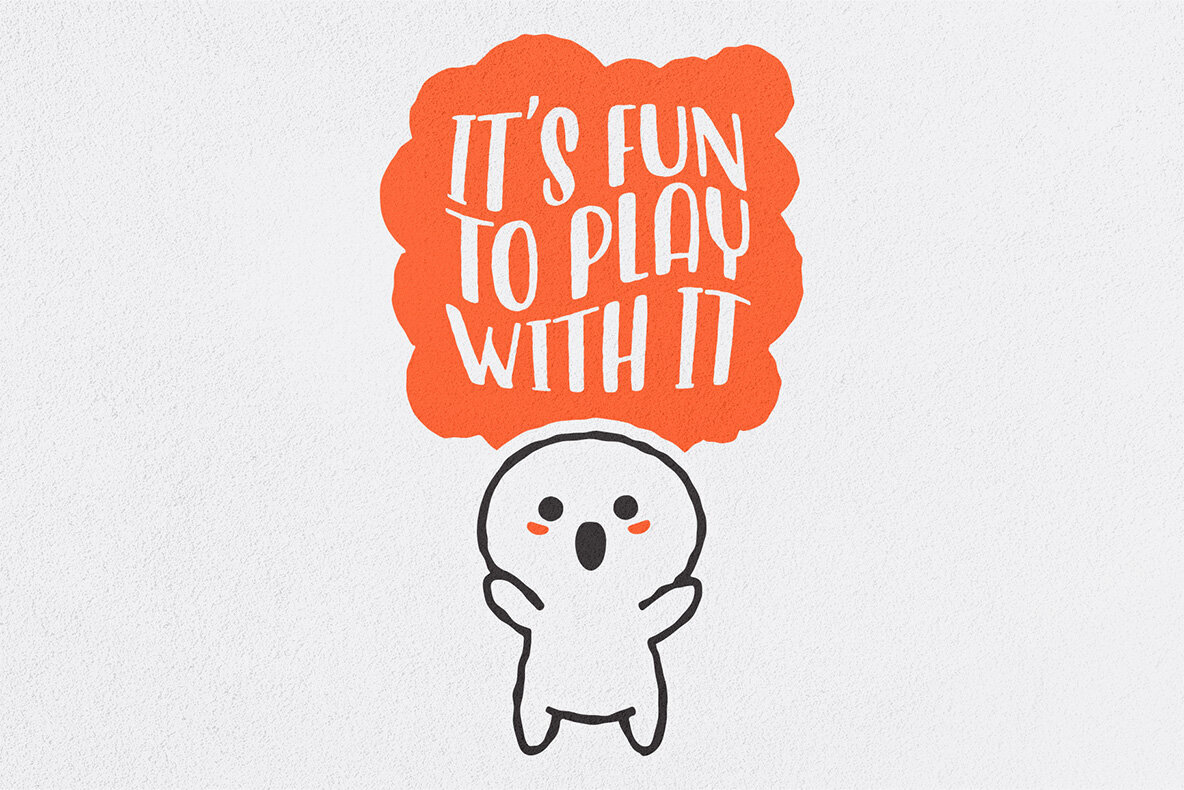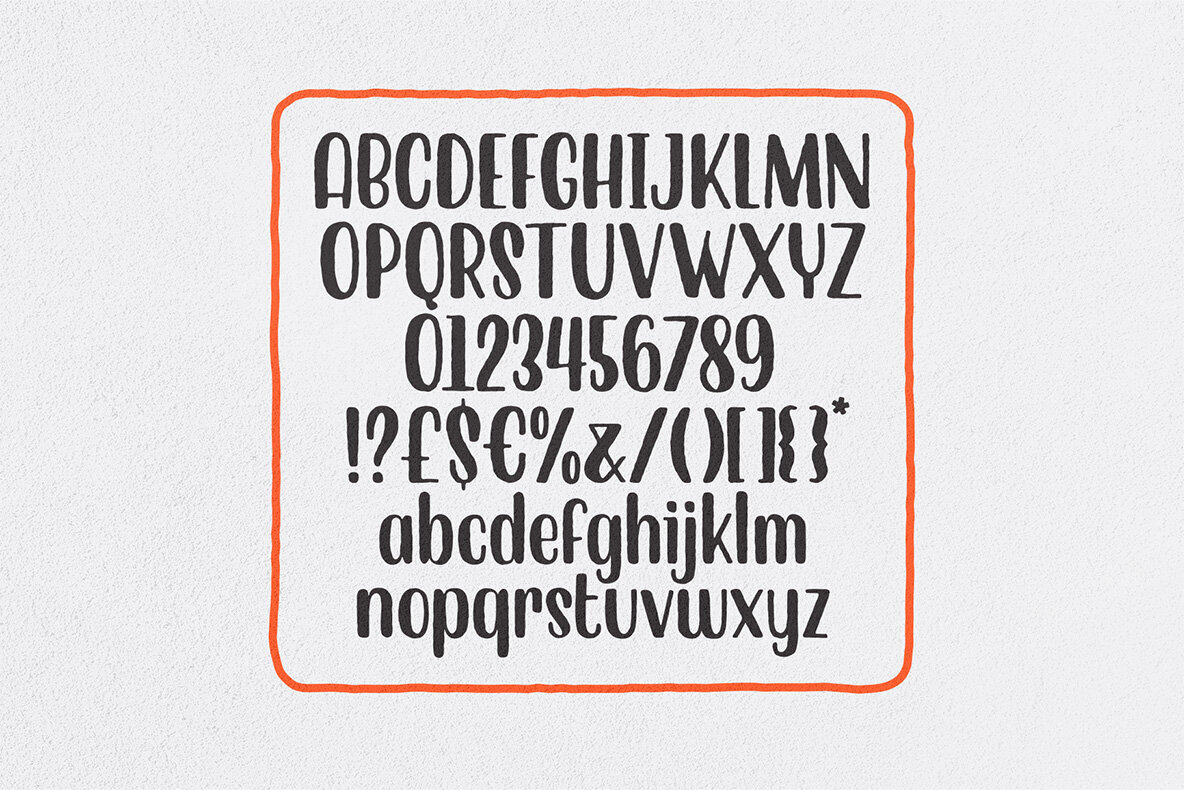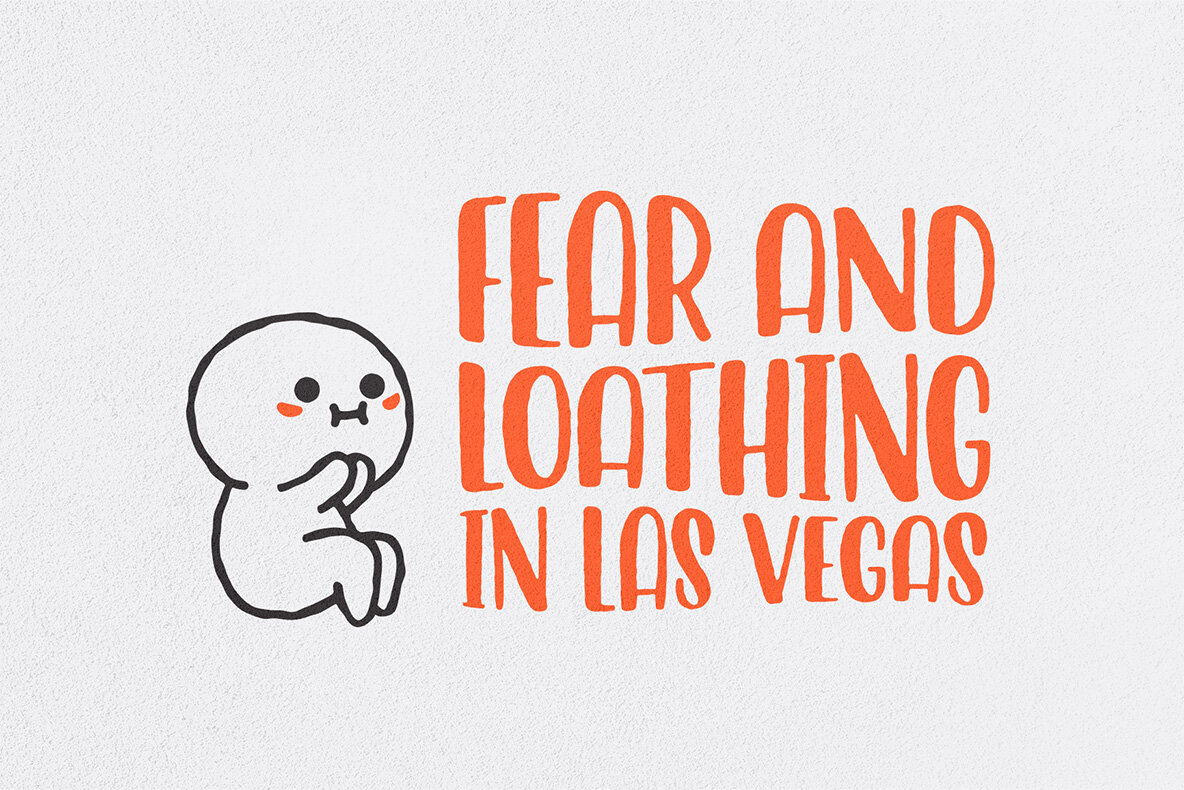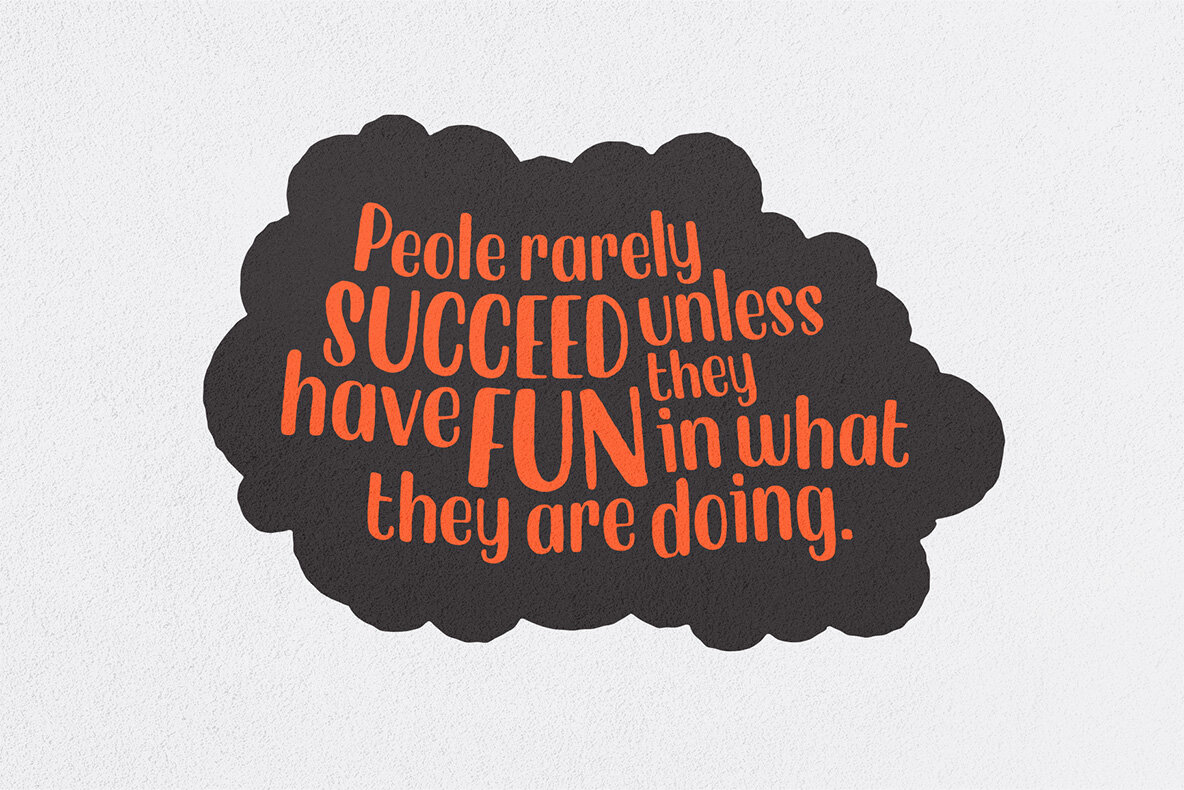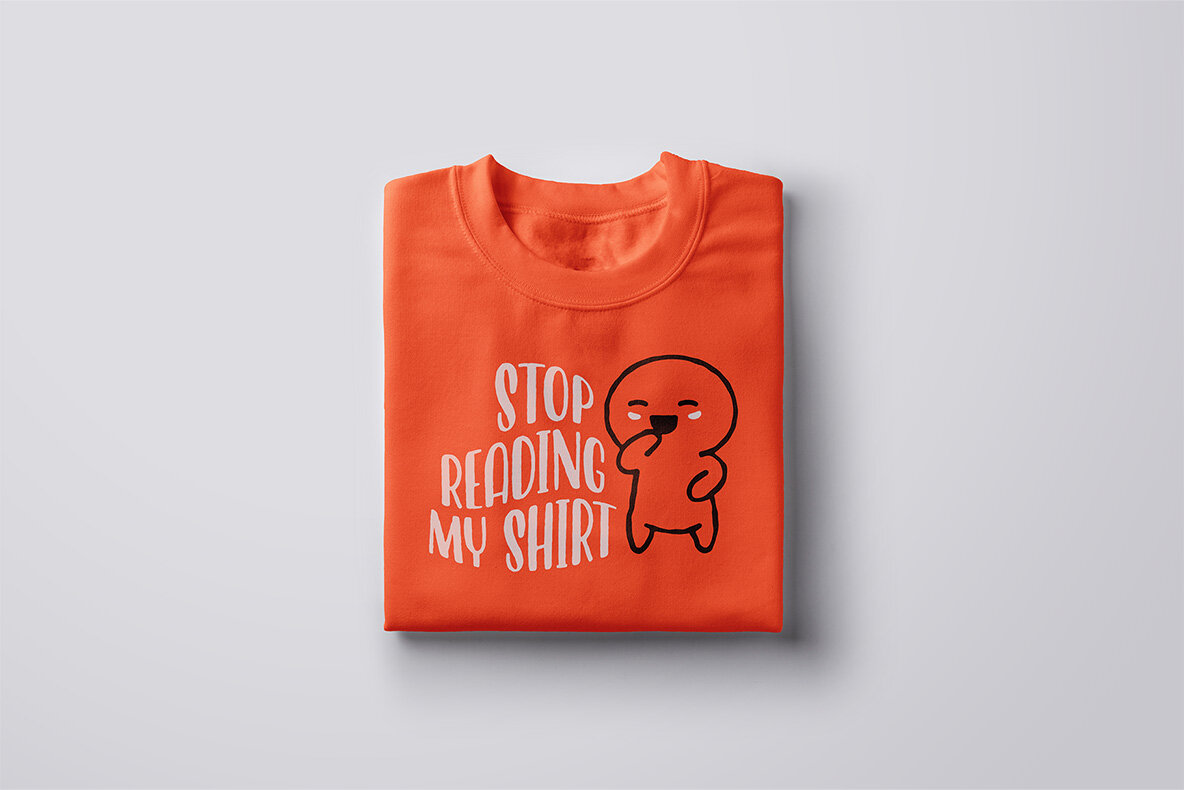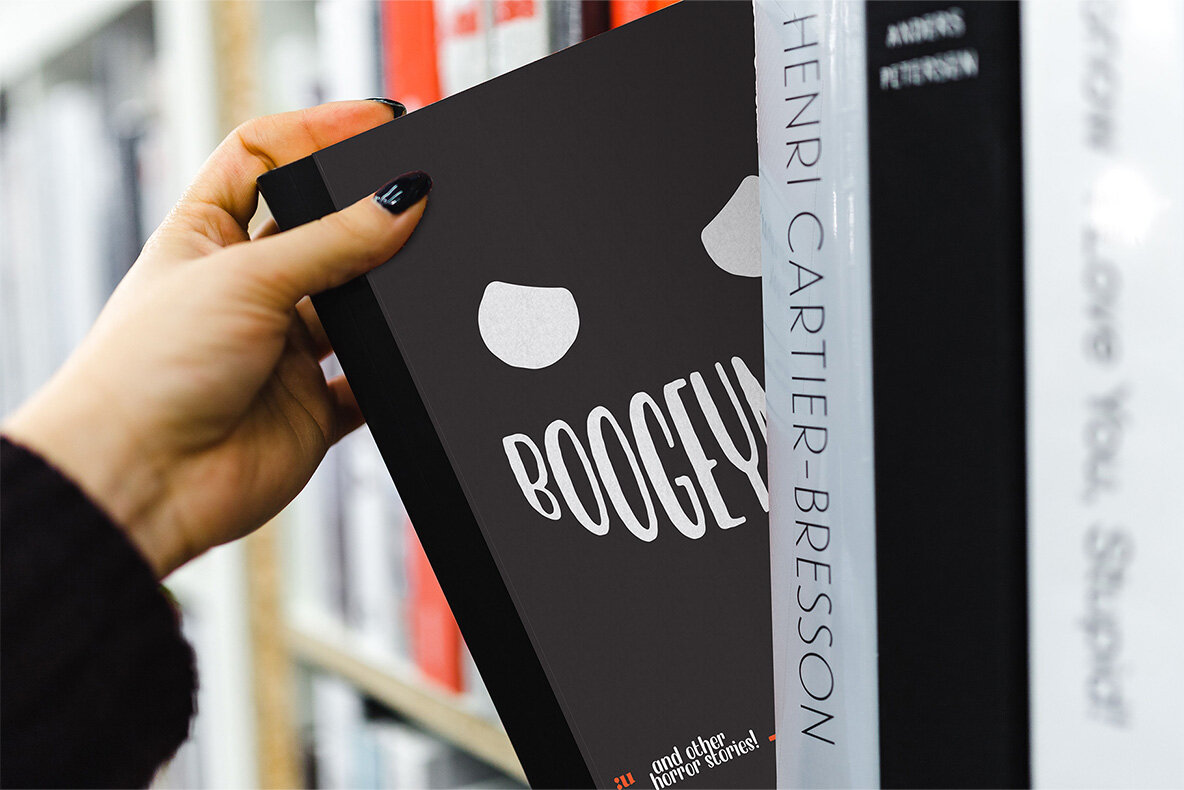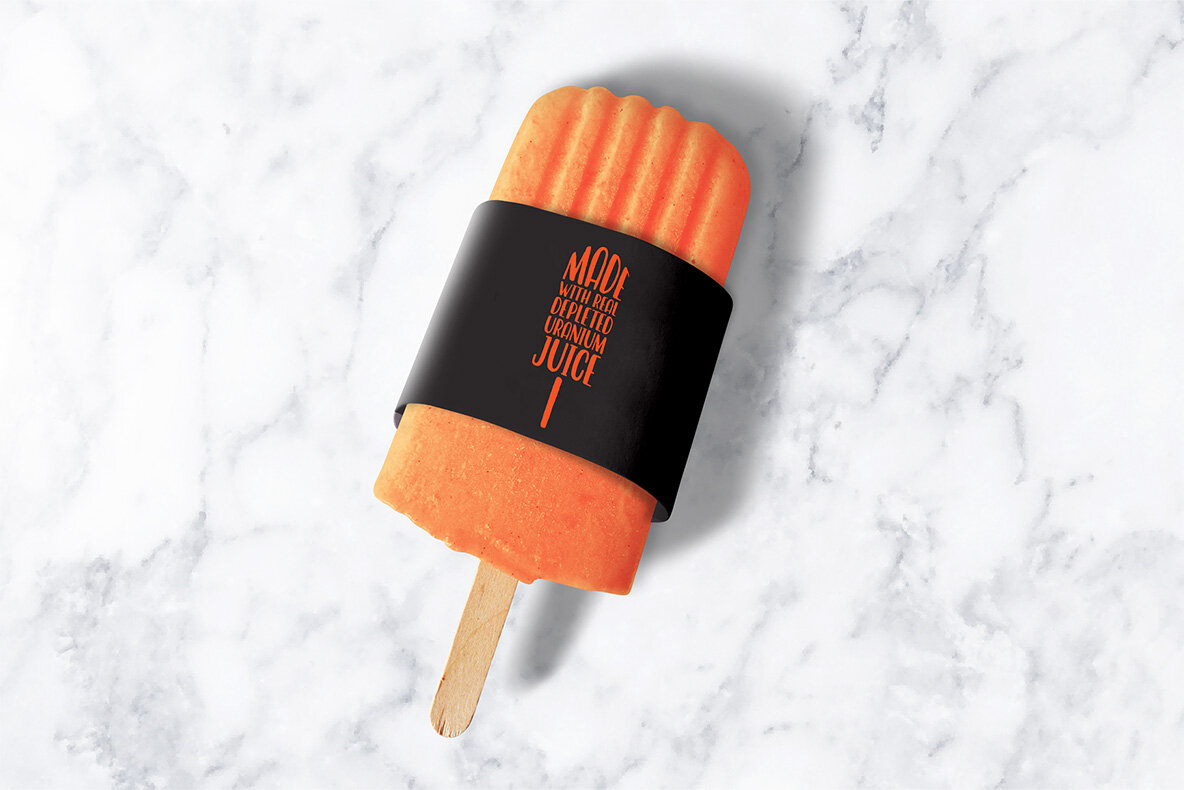
Ballyhoo Font
Ballyhoo Regular
Create stylish typography design with Ballyhoo, our brand-new quirky typeface. This irreverent font is fully loaded with slightly irregular chunky characters which can add a bunch of ballyhoo personality to any design project. Get noticed with an ad campaign or hype up any logo design, apparel, printed stationery, mugs and much more! Ballyhoo contains more than 350 glyphs and covers several languages based on the Latin alphabet; the quirky experience is enhanced with OpenType (OTF) support including some neat ligatures.